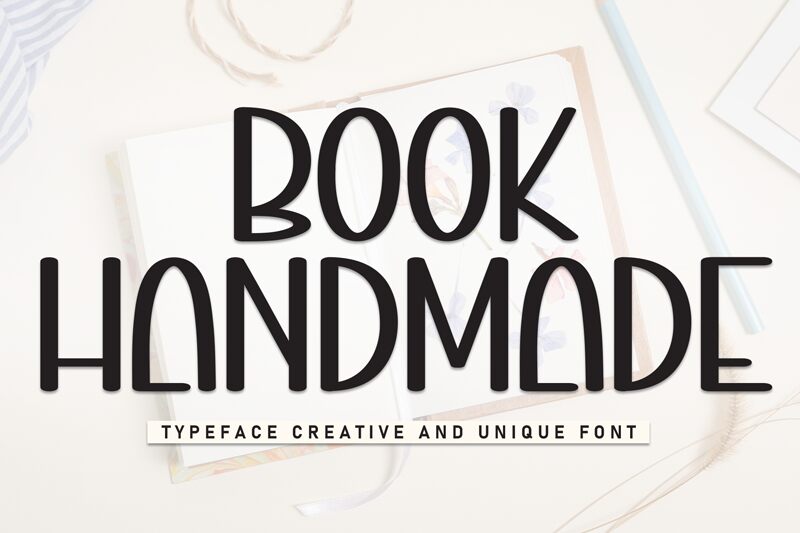
Book Handmade
Book Handmade font by Scratchones is a free handwritten font that brings a minimalist and elegant touch to your projects. With its geometric appeal, the font combines retro-inspired, art deco-infused elements in a modern way.
This charming typeface is perfect for invitations, branding, posters, logos, advertising, packaging design, book covers, magazine layouts and more. Give it a try for social media posts or websites too!